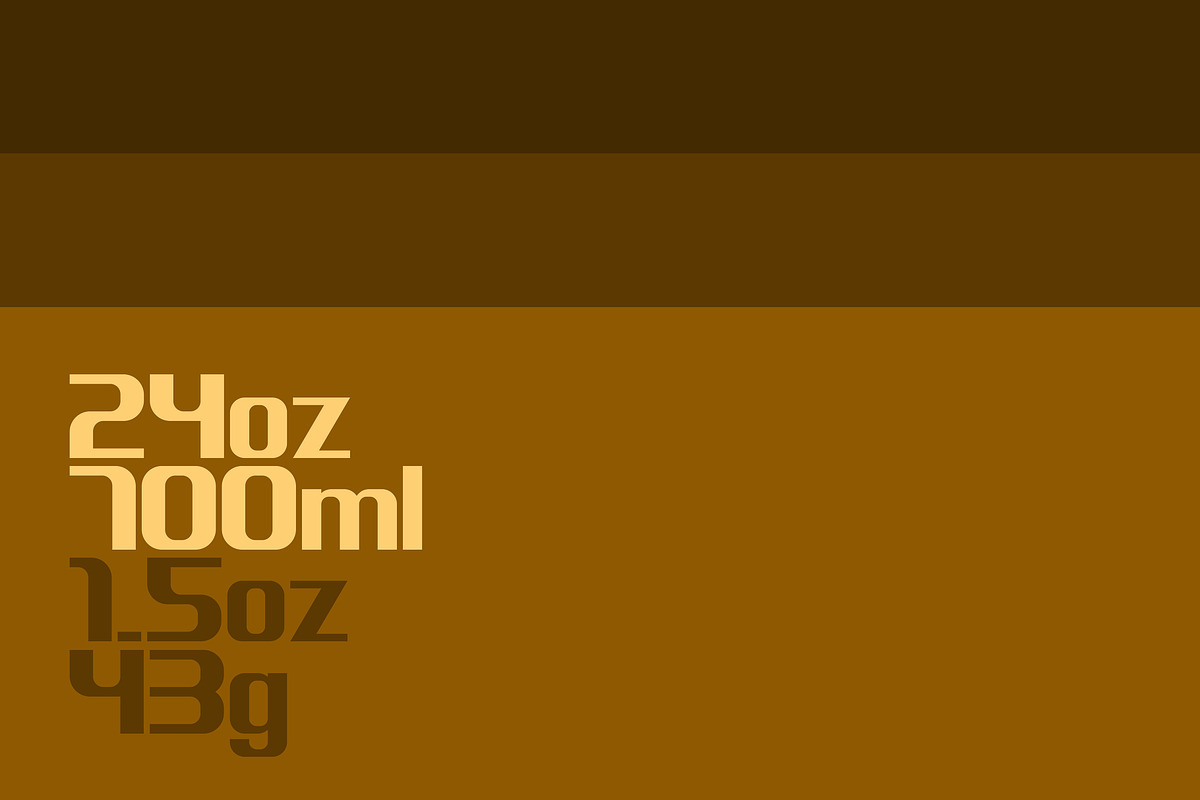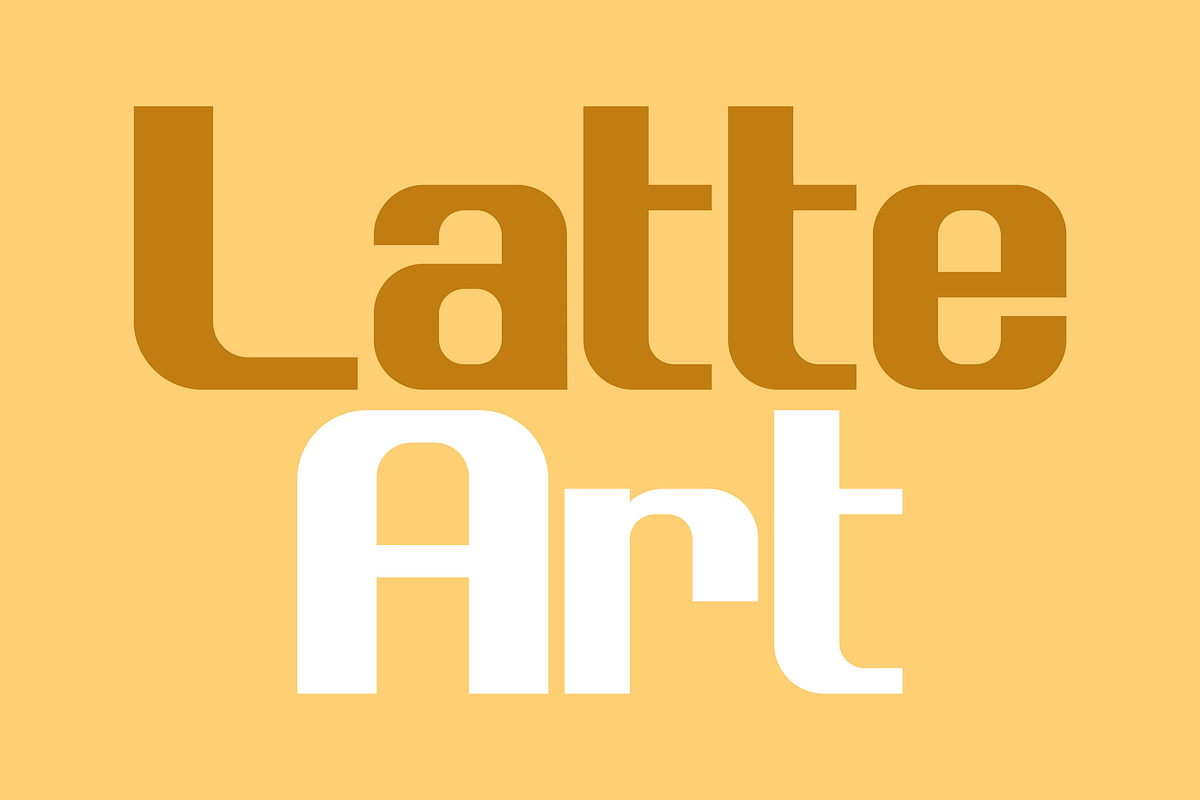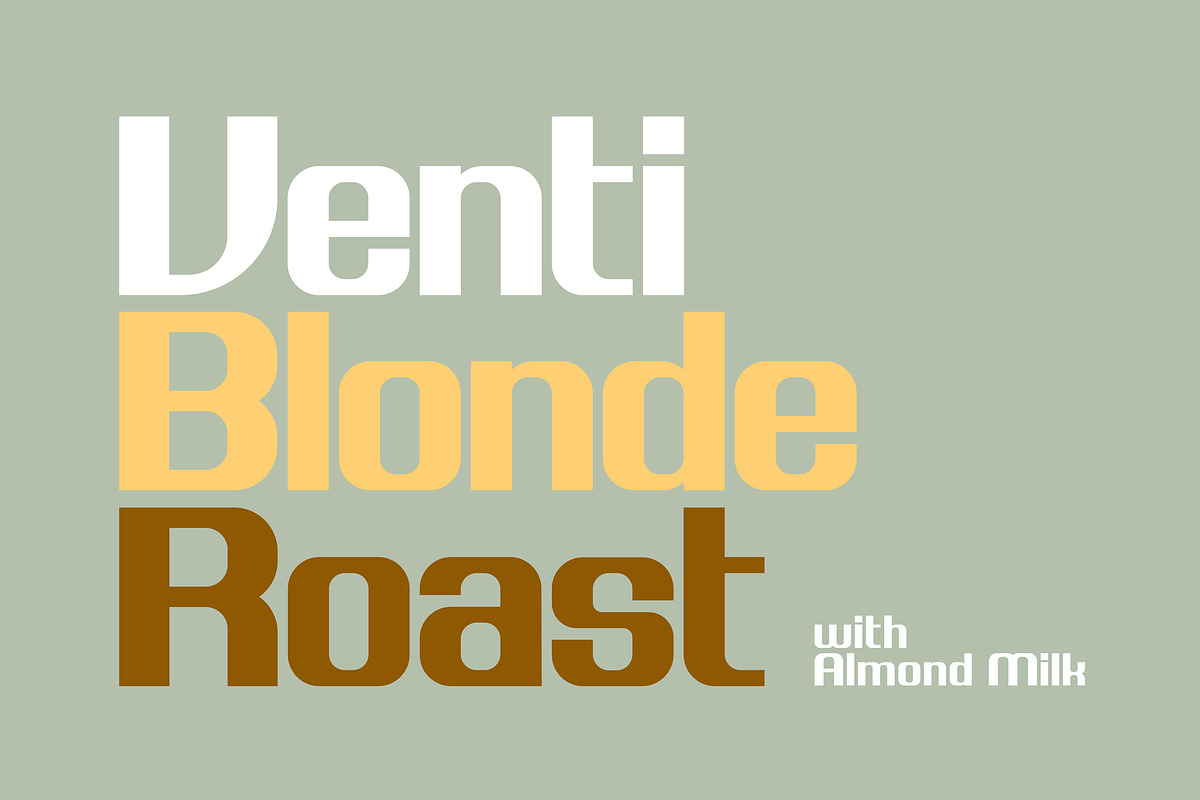
With strong, bold, geometric details, Dodger is a versatile sans-serif headline font that’s equal parts retro and modern. Perfect for eye-catching headlines, clean branding, web design, and more.